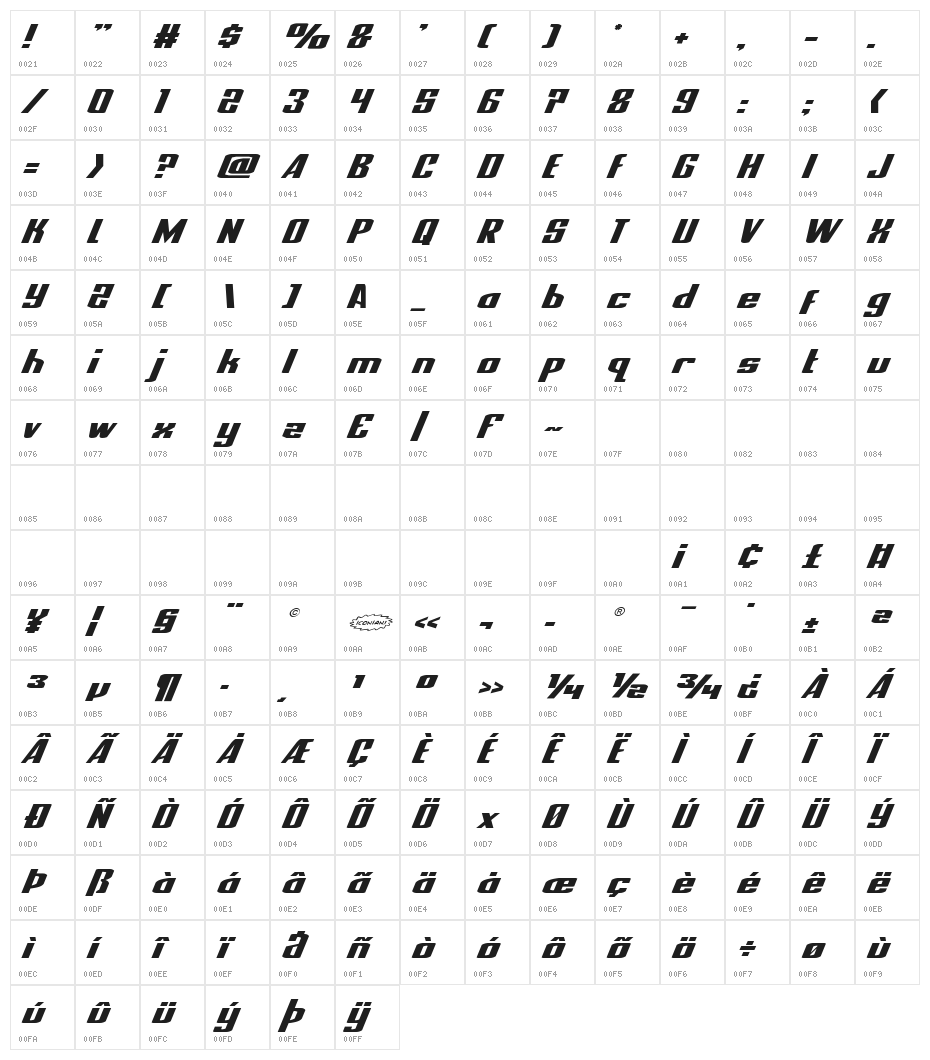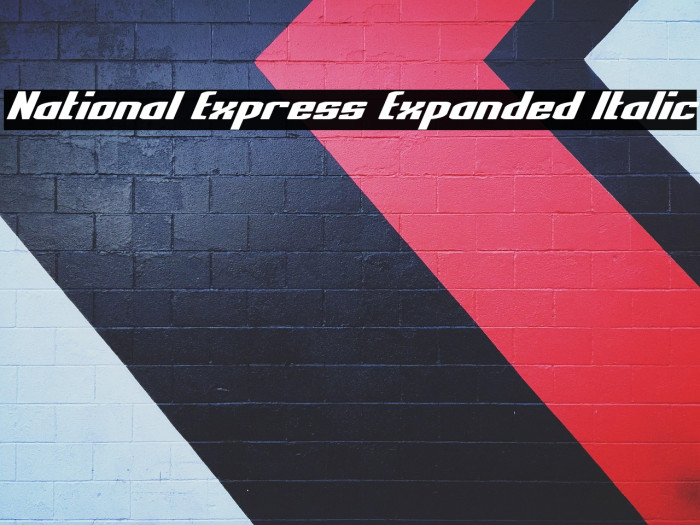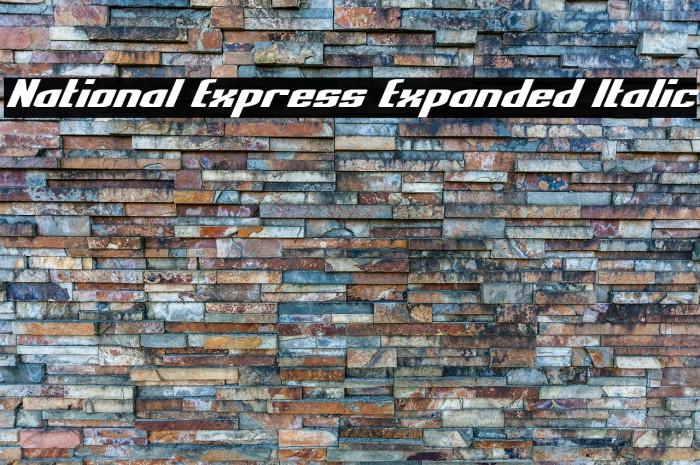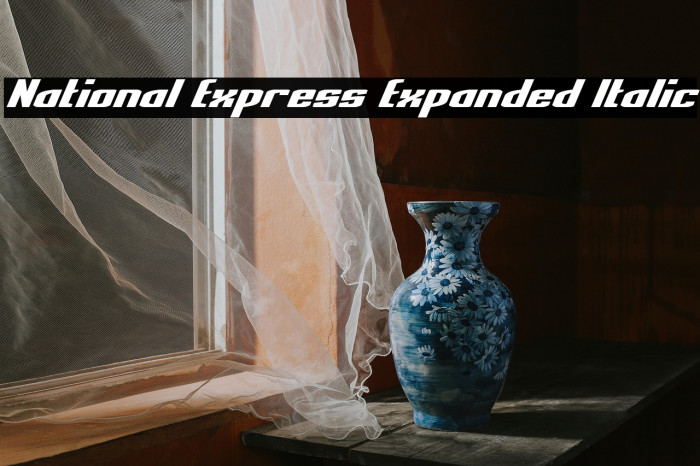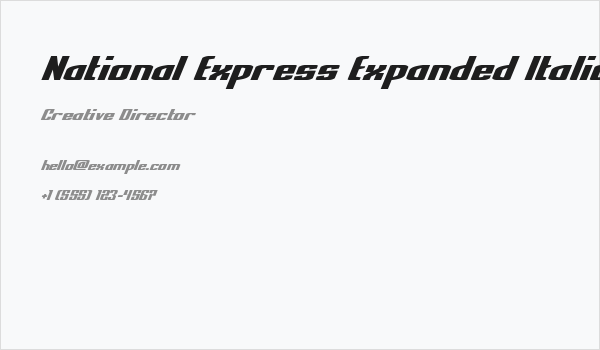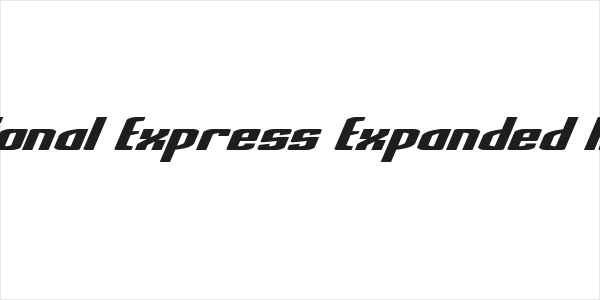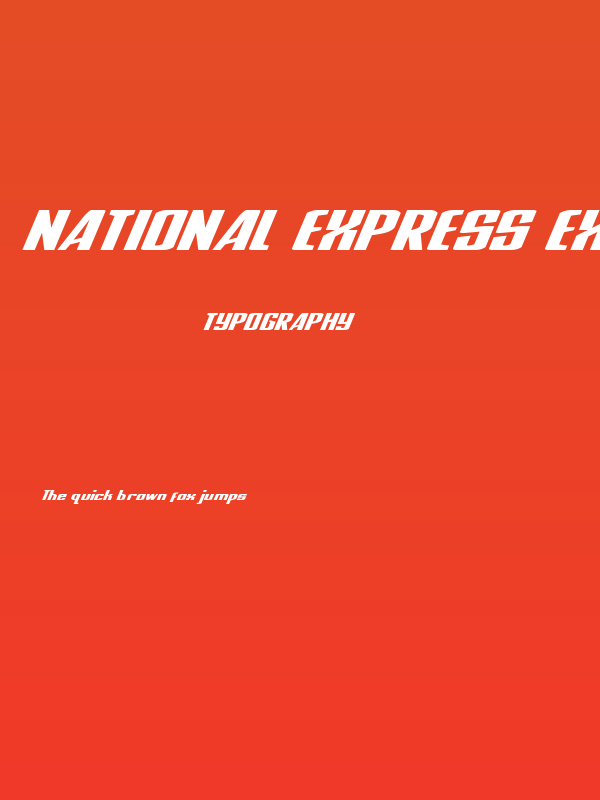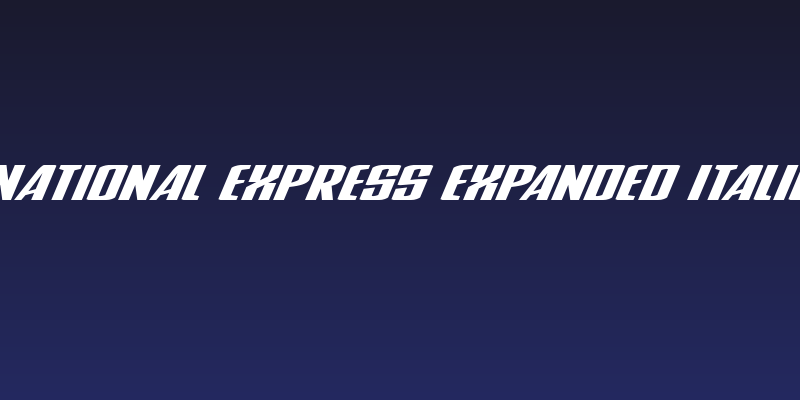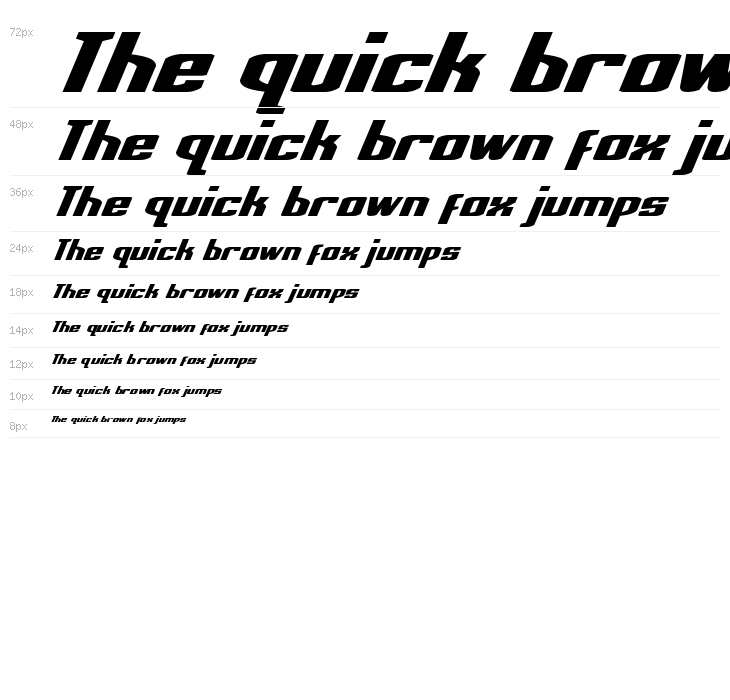
National Express Expanded Italic Font
National Express Expanded Italic Description
This font features a bold and dynamic style with an italicized slant, giving it a sense of motion and energy. The characters are expanded, providing a wide and impactful appearance. Each letter is crafted with sharp angles and clean lines, enhancing its modern and assertive look. The uppercase and lowercase letters maintain a consistent style, while the numerals and special characters complement the overall design. This font's strong presence makes it suitable for attention-grabbing headlines and impactful branding.
Proposed ProjectsIdeal for sports branding, automotive advertisements, dynamic posters, and modern logo designs.